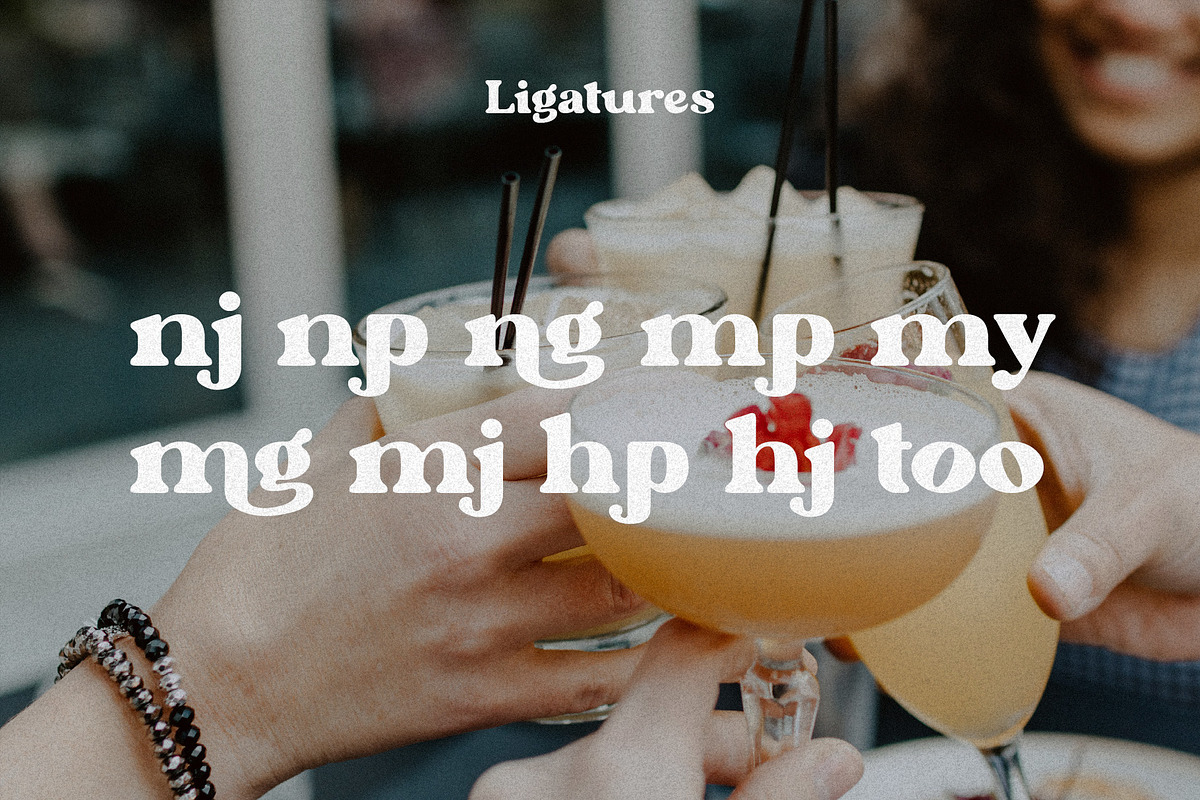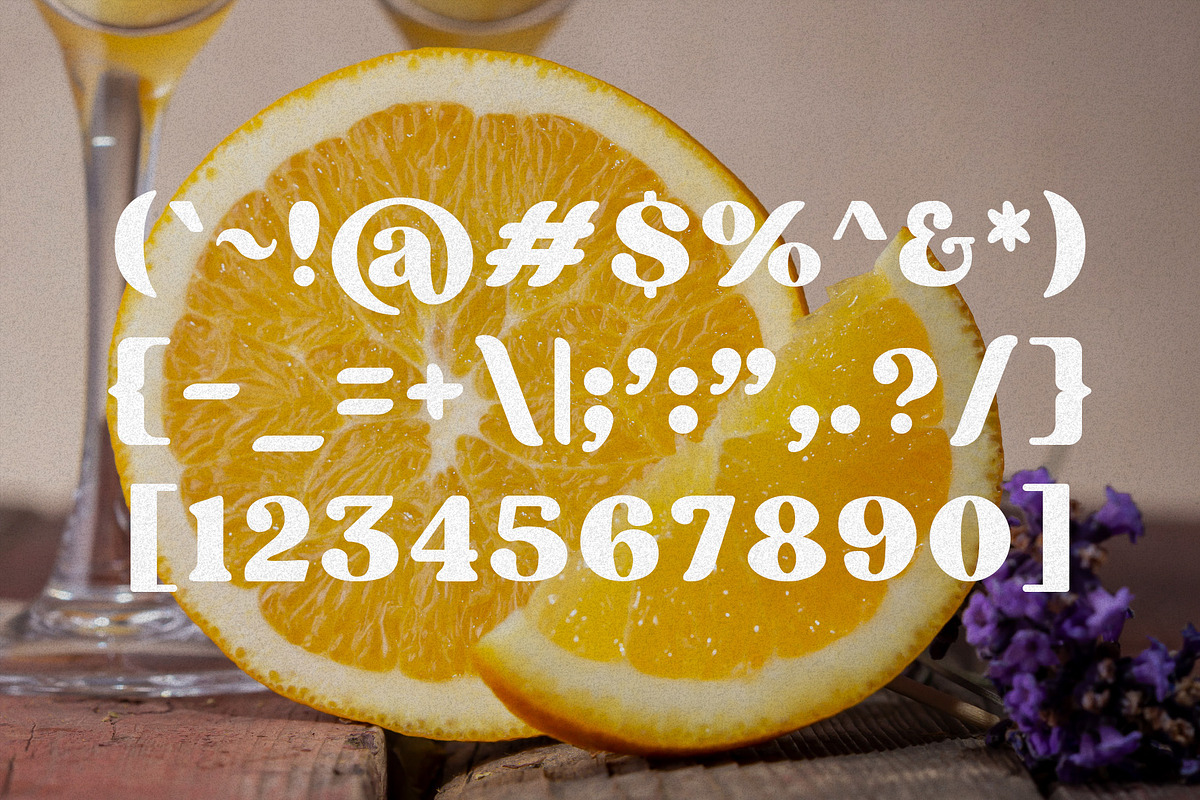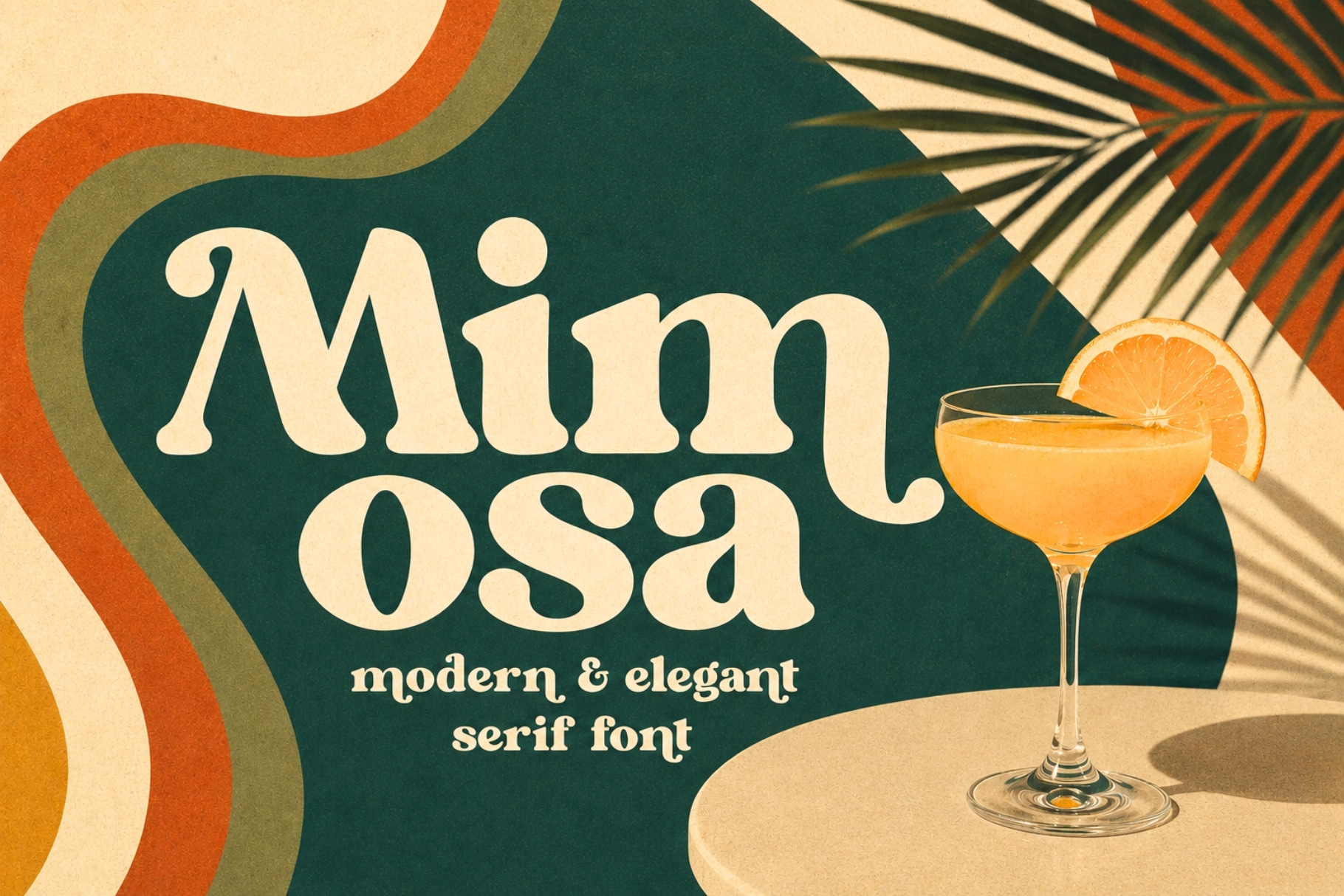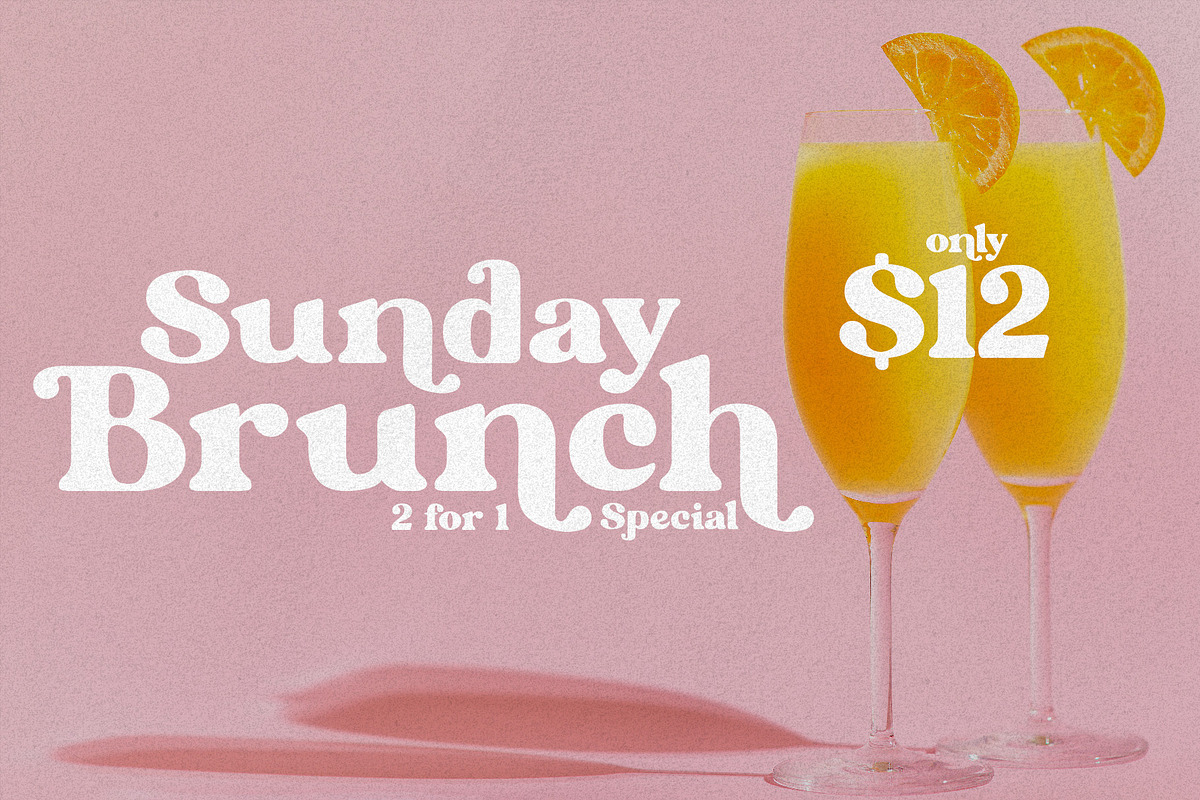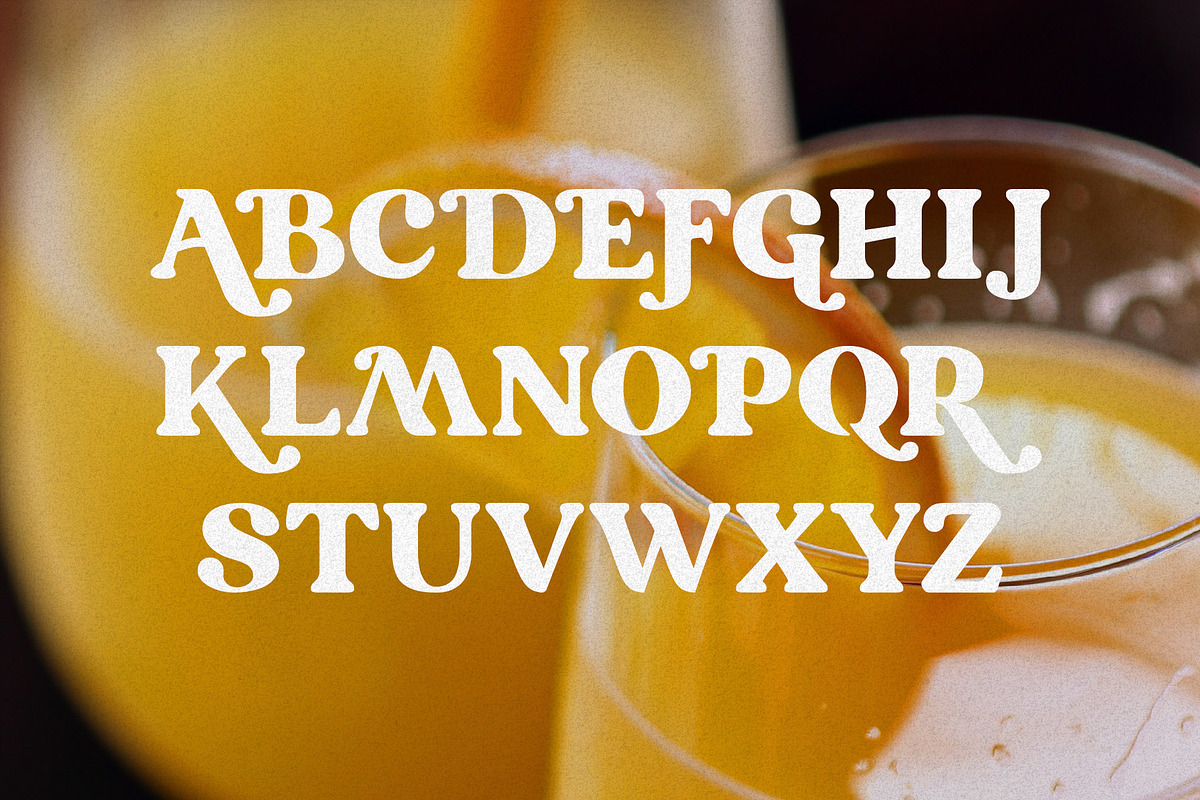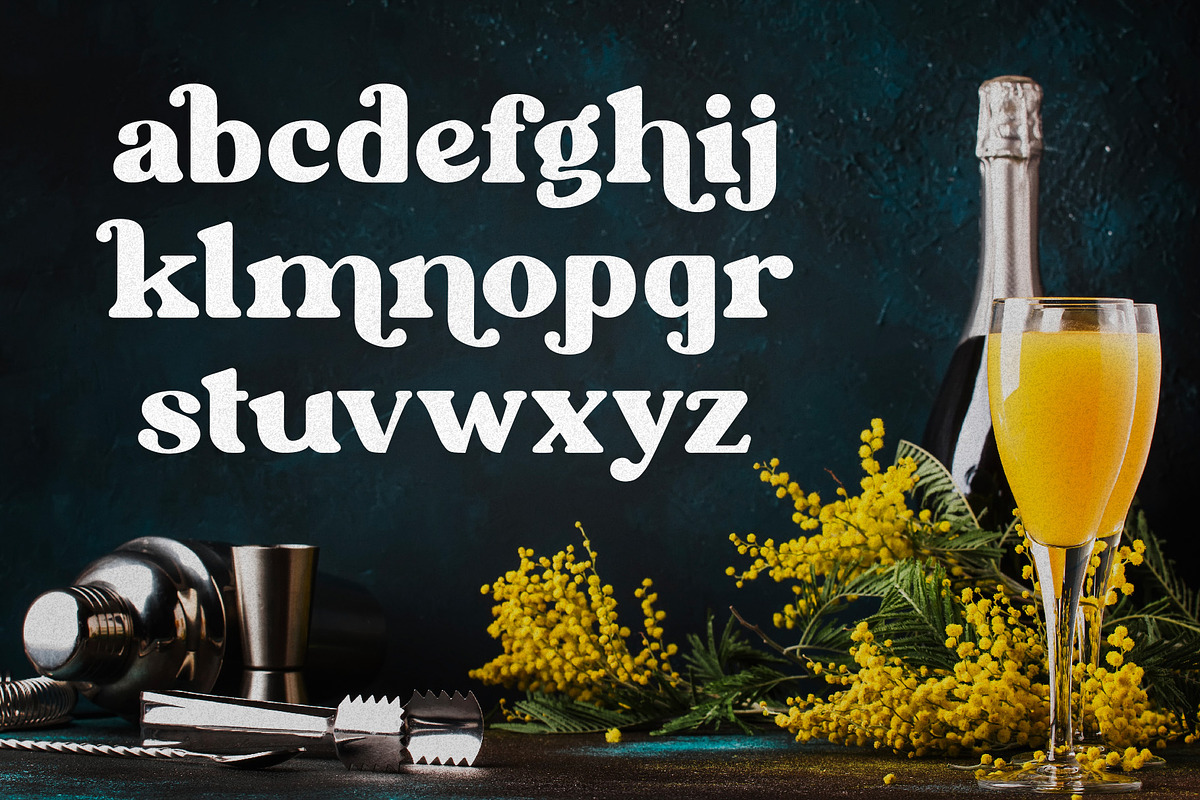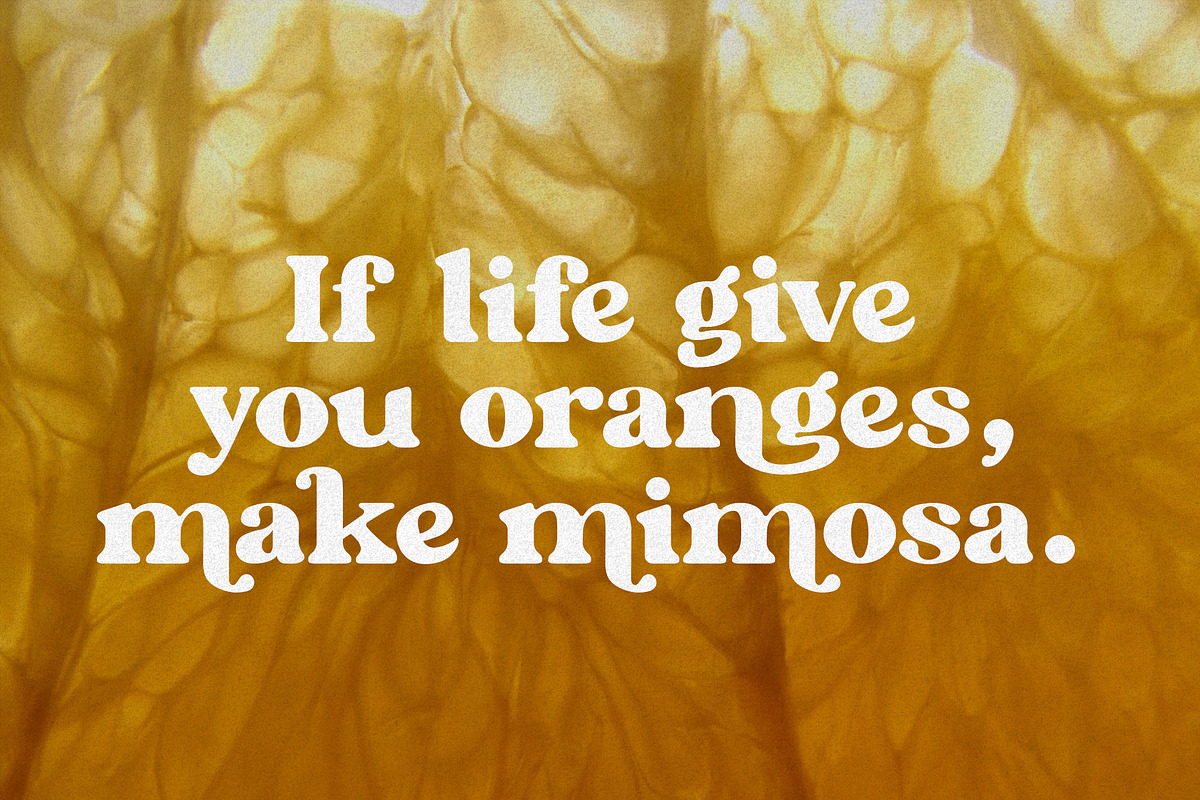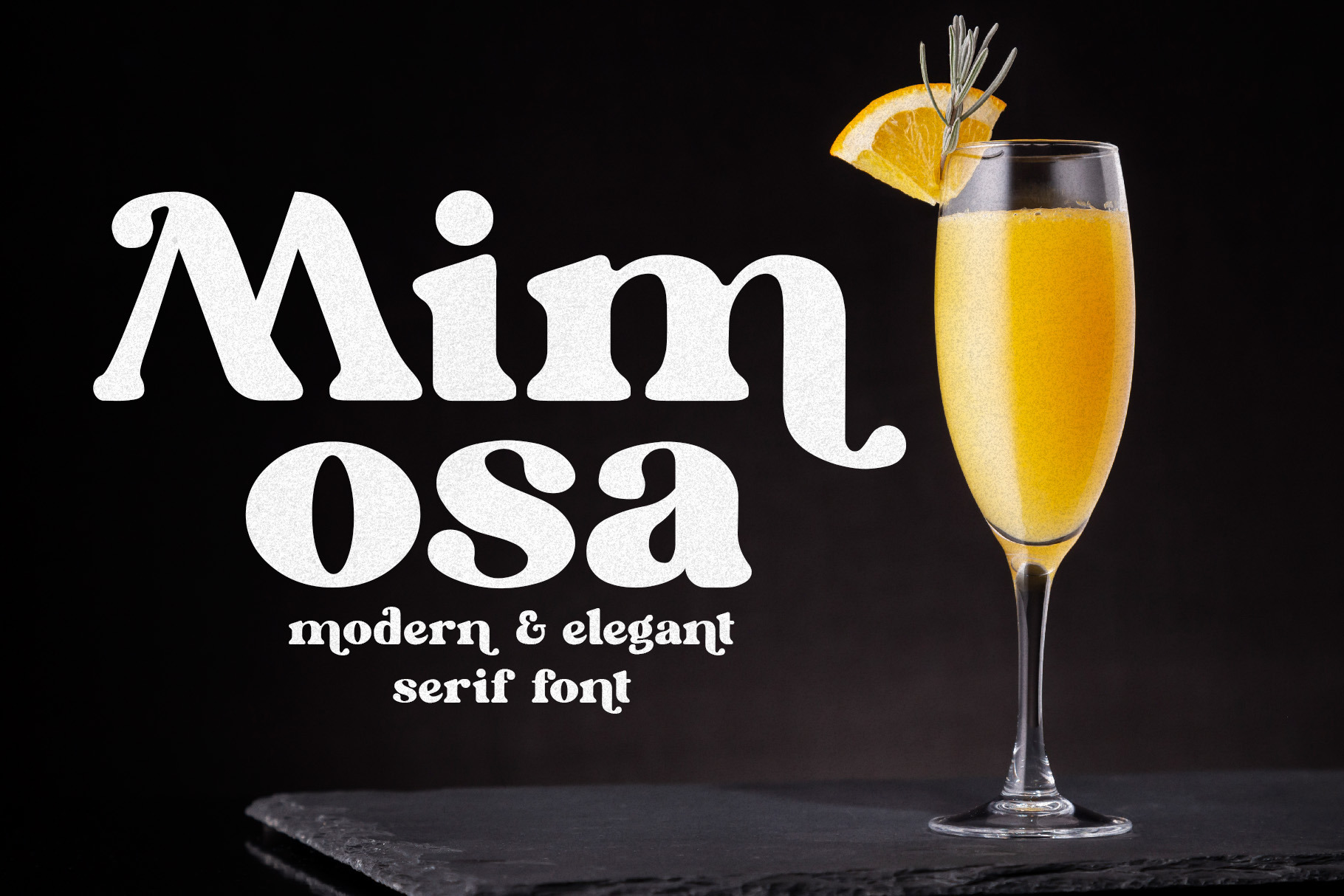
Mimosa - Modern Retro Typeface
Mimosa is a is a gorgeous font that has both modern and retro look. It's perfect for creating that 1950s, 1960s, or 1970s design look. The font comes in bold and black versions. Both TTF and OTF files are included for each version. Mimosa is well-suited for advertising, branding, logotypes, packaging, titles, headlines and editorial design. Enjoy!